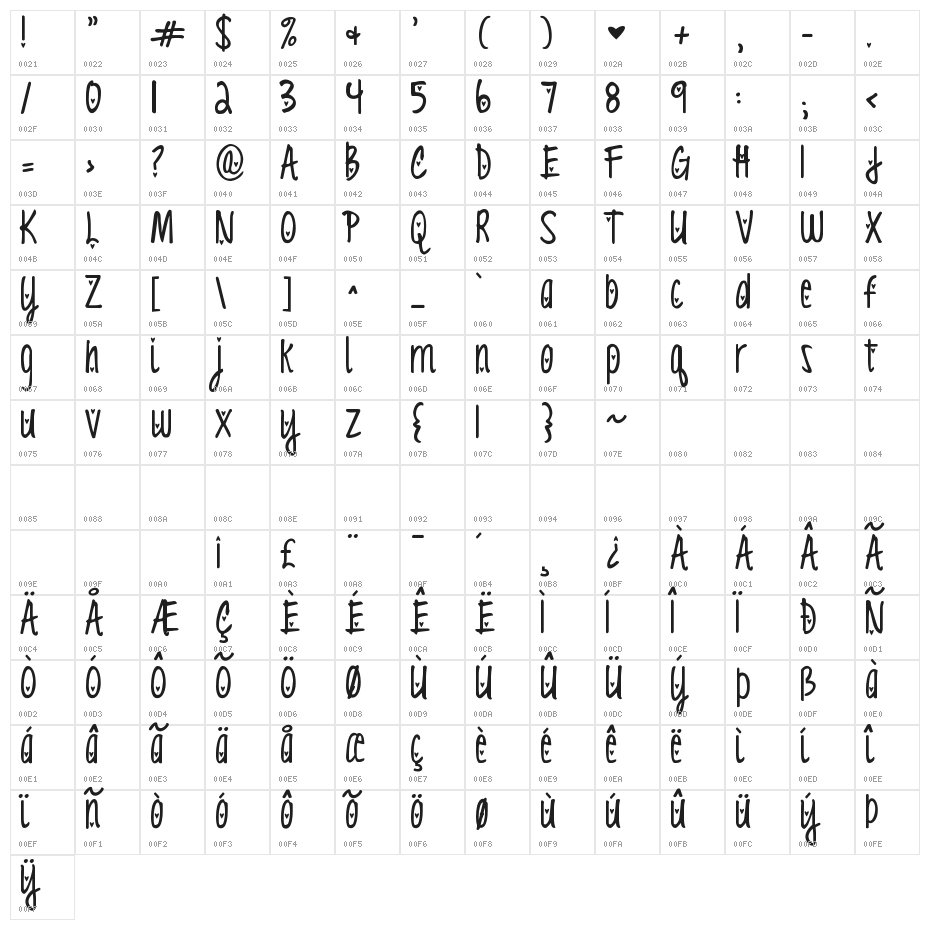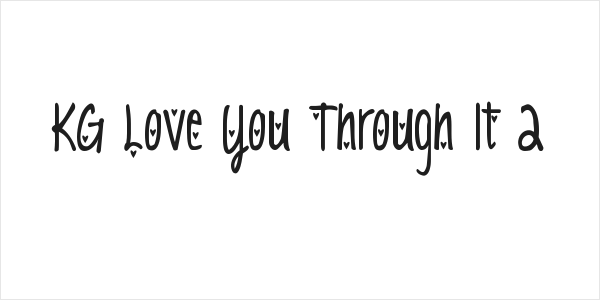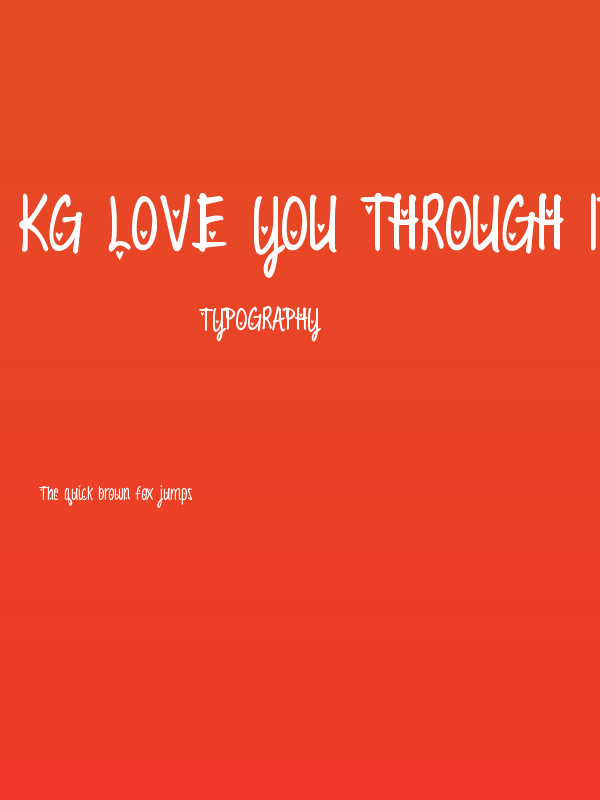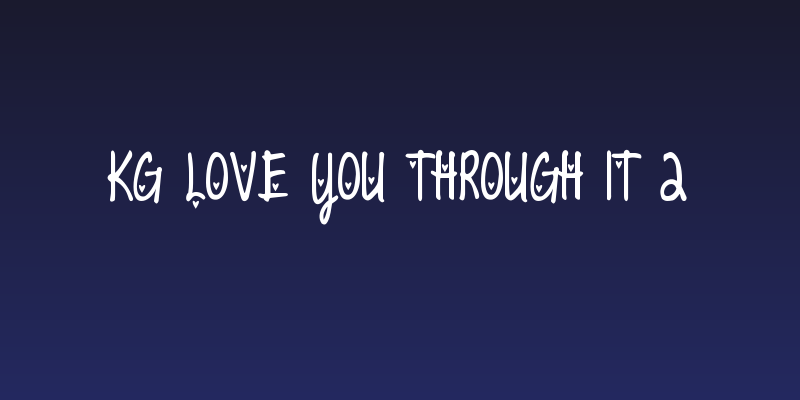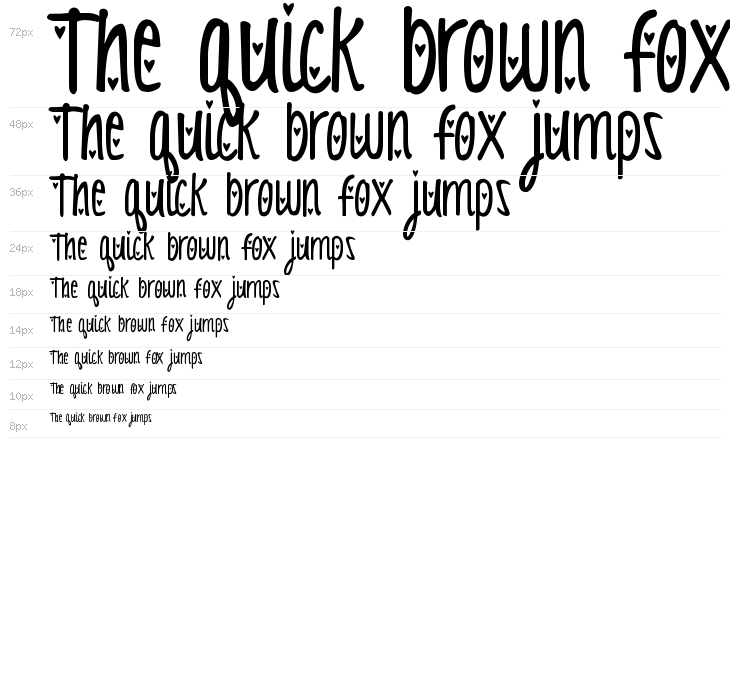
KG Love You Through It 2 Font
KG Love You Through It 2 Description
This playful and whimsical font features a unique design with hearts integrated into the letters, adding a touch of charm and warmth. The characters are tall and narrow, with a hand-drawn feel that conveys a sense of friendliness and creativity. The uppercase and lowercase letters maintain a consistent style, while the numbers and special characters complement the overall aesthetic. This font is ideal for projects that require a personal and heartfelt touch, such as greeting cards, invitations, or children's book illustrations.
| Overall Style | Whimsical, Playful |
| Use Case | Headlines, Logos, Decorative text |
| Proposed Projects | Ideal for greeting cards, invitations, children's books, and playful branding. |